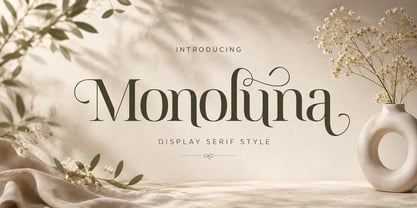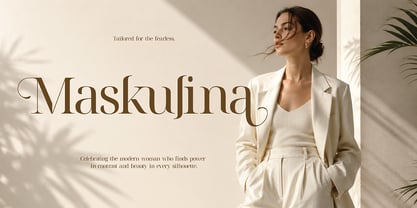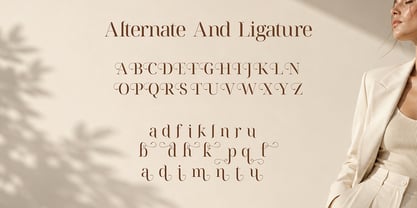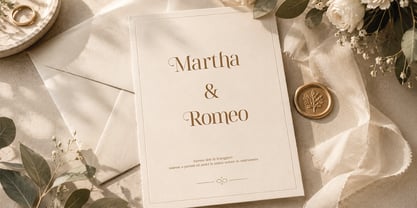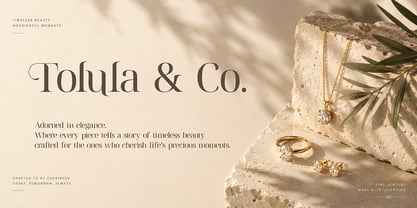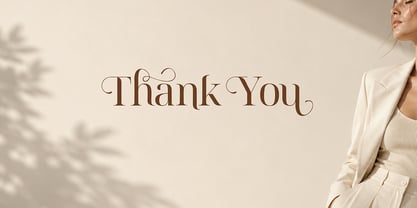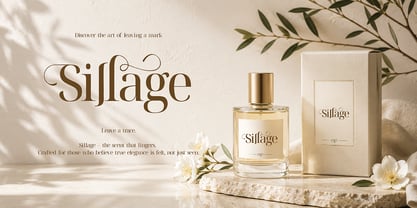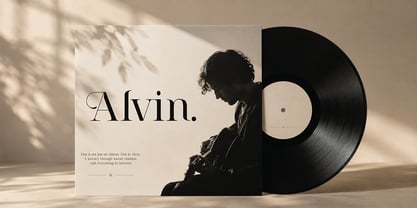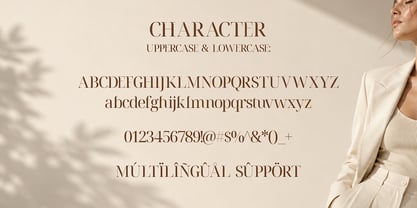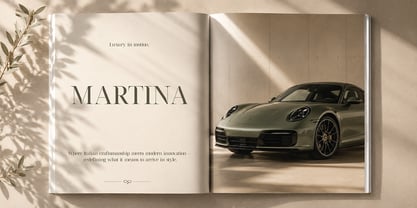
Monoluna
by Monolimes
The Monoluna Font Family was designed by Brainy Javanika Putra and published by Monolimes. Monoluna contains 1 styles. More about this family
Monoluna is a luxurious display serif font that combines timeless elegance with modern sophistication. Featuring delicate high-contrast letterforms, graceful swashes, and refined curves, Monoluna is designed to elevate premium branding projects. Perfect for logos, wedding invitations, fashion editorials, beauty and skincare packaging, luxury boutiques, jewelry branding, perfume labels, home décor, cafés, and high-end marketing materials. Its stylish and feminine personality creates a sophisticated visual identity while maintaining exceptional readability. Whether you're designing for print or digital media, Monoluna brings effortless elegance and lasting impressions to every project.
Introducing Monoluna, a refined display serif typeface inspired by modern luxury and classic editorial typography. Carefully crafted with elegant proportions and flowing decorative swashes, Monoluna delivers a graceful balance between sophistication and artistic expression.
Designed for creatives who appreciate premium aesthetics, Monoluna is the perfect choice for luxury branding, wedding stationery, fashion campaigns, beauty packaging, editorial layouts, and boutique businesses. Every character is thoughtfully designed to create eye-catching headlines, memorable logos, and timeless visual identities.
Its elegant curves and delicate details make Monoluna an ideal typeface for brands that want to communicate refinement, exclusivity, and style.